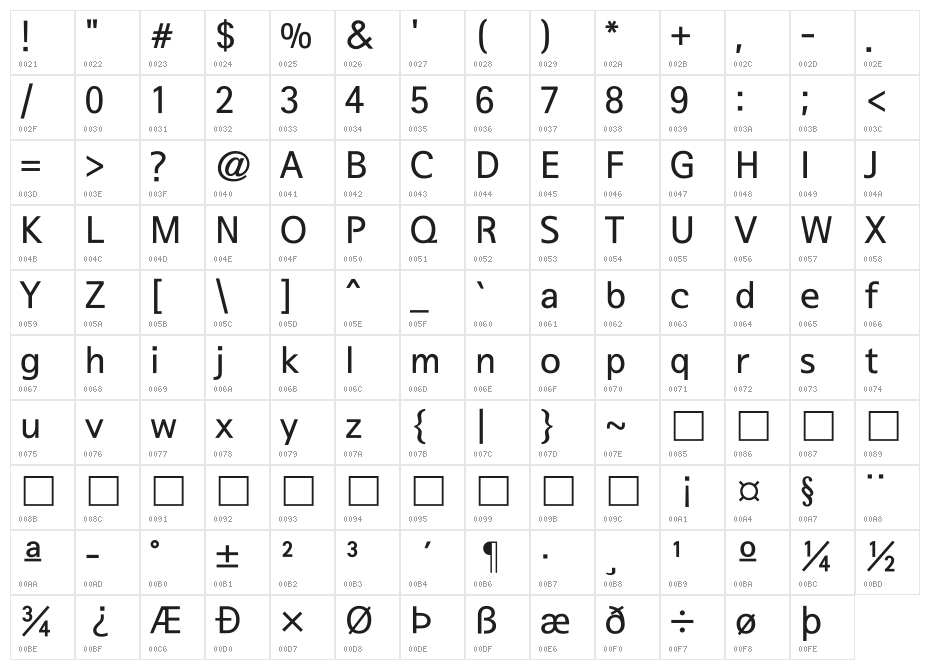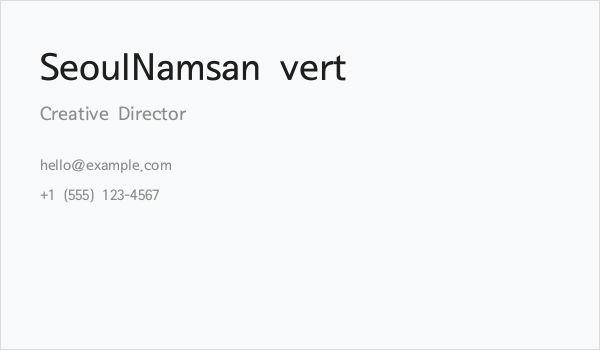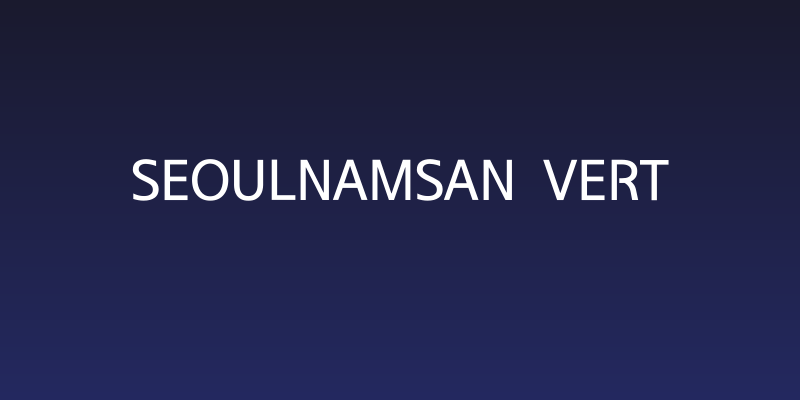
SeoulNamsan vert Font
SeoulNamsan vert Description
This font exhibits a clean and modern sans-serif style, characterized by its simplicity and readability. The letters are evenly spaced with a consistent stroke width, providing a balanced and harmonious appearance. The uppercase and lowercase letters maintain a uniform height, contributing to its legibility. The numerals are clear and distinct, making them suitable for various applications. Special characters are well-defined, ensuring versatility in use. This font's straightforward design makes it ideal for digital and print media, where clarity and professionalism are essential.